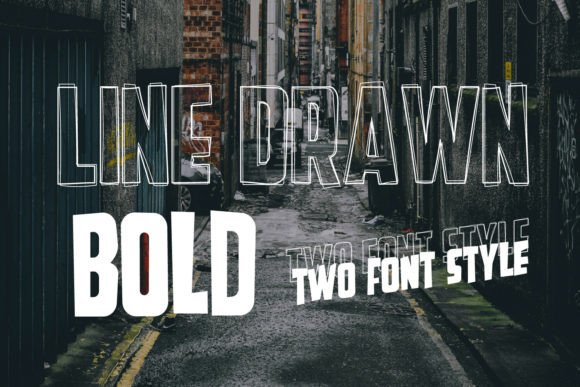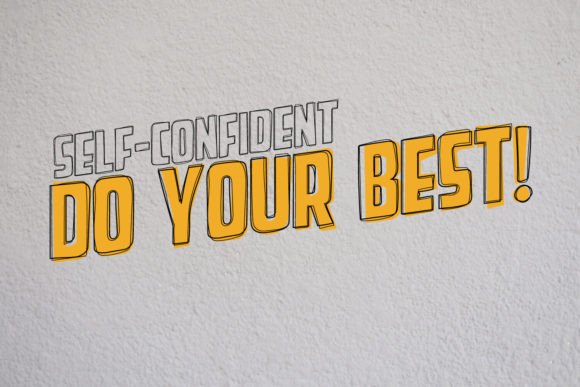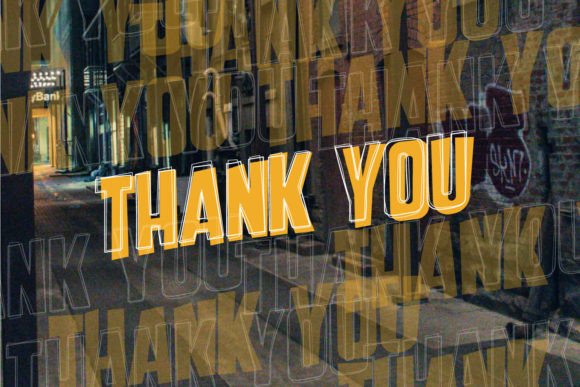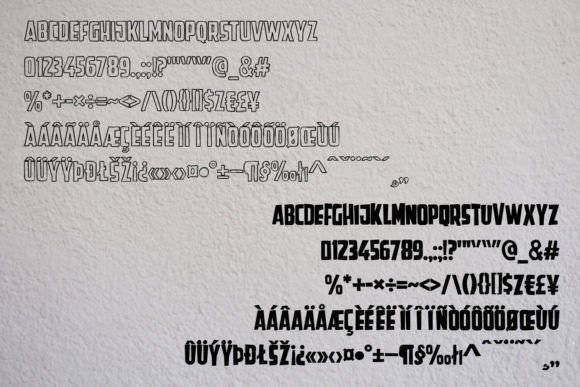
Introducing Drawn Down Font: Adding a Touch of Whimsy to Your Designs
Are you tired of using the same old fonts in your designs? Look no further than the Drawn Down font, a playful and bold display font that’s sure to catch the eye. With its thick, confident strokes and whimsical curves, this font is perfect for designs that need a touch of fun and flair.
What is Drawn Down Font?
Drawn Down font is a unique and eye-catching typeface that’s designed to add a touch of personality to your designs. Its thick, bold strokes and playful curves make it perfect for headlines, logos, and any other design element that needs to stand out. Whether you’re a designer, crafty DIY enthusiast, or simply someone who loves to play with fonts, Drawn Down is sure to delight.
Key Features of Drawn Down Font
- Playful and Bold: Drawn Down font is a playful and bold display font that’s sure to catch the eye.
- Thick, Confident Strokes: The font features thick, confident strokes that give it a sense of confidence and authority.
- Whimsical Curves: The font’s whimsical curves add a touch of fun and playfulness to any design.
- Perfect for Headlines and Logos: Drawn Down font is perfect for headlines, logos, and any other design element that needs to stand out.
Uses for Drawn Down Font
Drawn Down font is a versatile typeface that can be used in a variety of design applications. Here are some ideas to get you started:
- Headlines and Titles: Use Drawn Down font to add a touch of personality to your headlines and titles.
- Logos and Branding: The font’s bold, confident strokes make it perfect for logos and branding materials.
- Signs and Posters: Drawn Down font is a great choice for signs and posters that need to grab attention.
- Social Media Graphics: Use the font to add a touch of fun and personality to your social media graphics.
- Crafting and DIY Projects: Drawn Down font is perfect for crafty DIY enthusiasts who want to add a personal touch to their projects.
Tips for Using Drawn Down Font
Here are some tips for getting the most out of Drawn Down font:
- Use it Sparingly: Because of its bold, eye-catching nature, it’s best to use Drawn Down font sparingly. Use it for headlines and titles, but not for body text.
- Pair it with Other Fonts: Drawn Down font pairs well with a variety of other fonts. Try pairing it with a clean, sans-serif font for a bold and modern look.
- Experiment with Colors: The font looks great in a variety of colors, so don’t be afraid to experiment and find the perfect hue for your design.
| Font Name | Drawn Down Font |
| Author | Rashdrawn |
Drawn Down font is a playful and bold display font that’s sure to add a touch of fun and personality to your designs. With its thick, confident strokes and whimsical curves, this font is perfect for designers, crafty DIY enthusiasts, and anyone who loves to play with fonts. So why not give it a try and see how it can elevate your designs?
Drawn Down Font: The Perfect Addition to Your Design Toolbox
In conclusion, Drawn Down font is a fun and playful display font that’s sure to add a touch of personality to your designs. With its bold, confident strokes and whimsical curves, this font is perfect for designers, crafty DIY enthusiasts, and anyone who loves to play with fonts. So why not give it a try and see how it can elevate your designs?